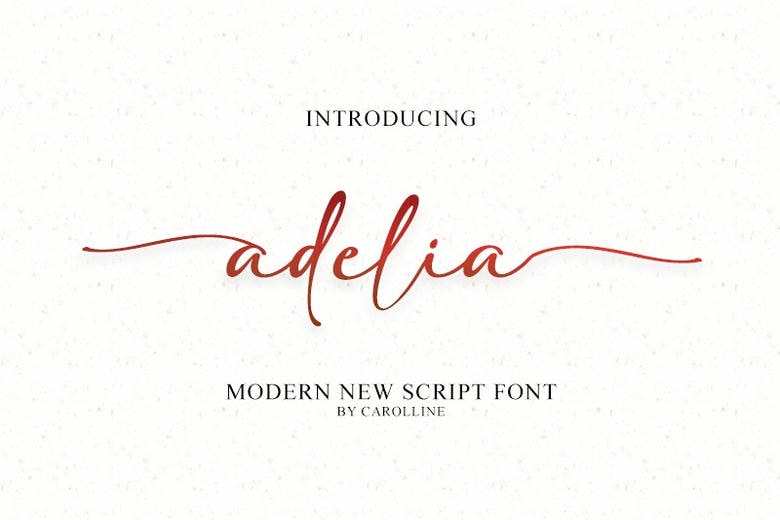
Adelia is a high quality modern calligraphy font that is designed by Carroline Typography and is available for free download and personal use. It can be used perfectly in headlines, branding, logos, packaging, elements of editorial layouts and is developed to make an lasting impression. The free version provides all uppercase and lowercase letters and a few special characters too.
Adelia Calligraphy Script Font